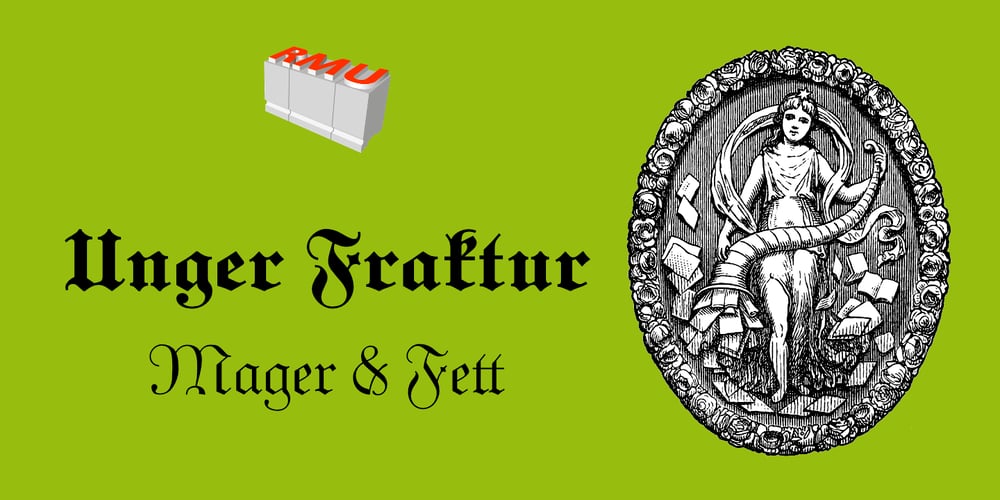
Unger Fraktur Font Family was designed by Ralph M. Unger and published by RMU. Unger Fraktur contains 2 styles and family package options. In the wake of the Enlightenment and the French Revolution there was a desire for a clear classical blackletter font without frills. That is why in 1793 the famous printer and editor Johann Friedrich Unger and his partner Johann Christian Gubitz accomplished their own fraktur. Now you will be able to use both regular and bold styles of this highly readable blackletter font. It is recommended to activate both OT features Standard and Discretionary Ligatures to access all ligatures in both these fonts. Typing N-o-period and activating the ordinal feature gives you the numero sign.